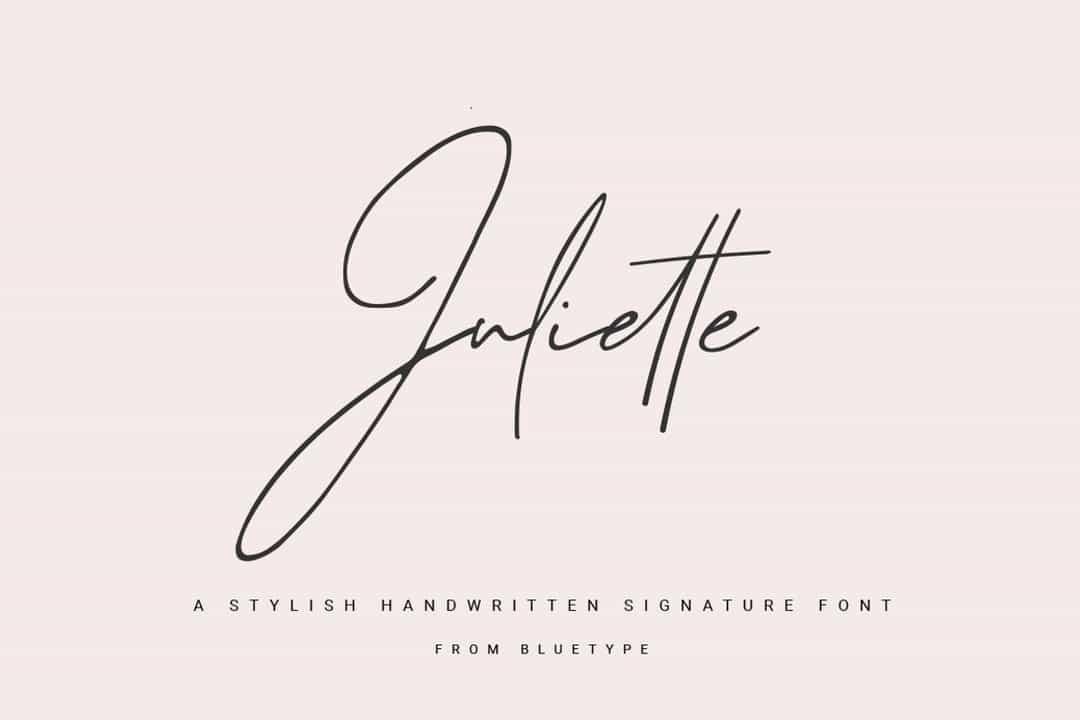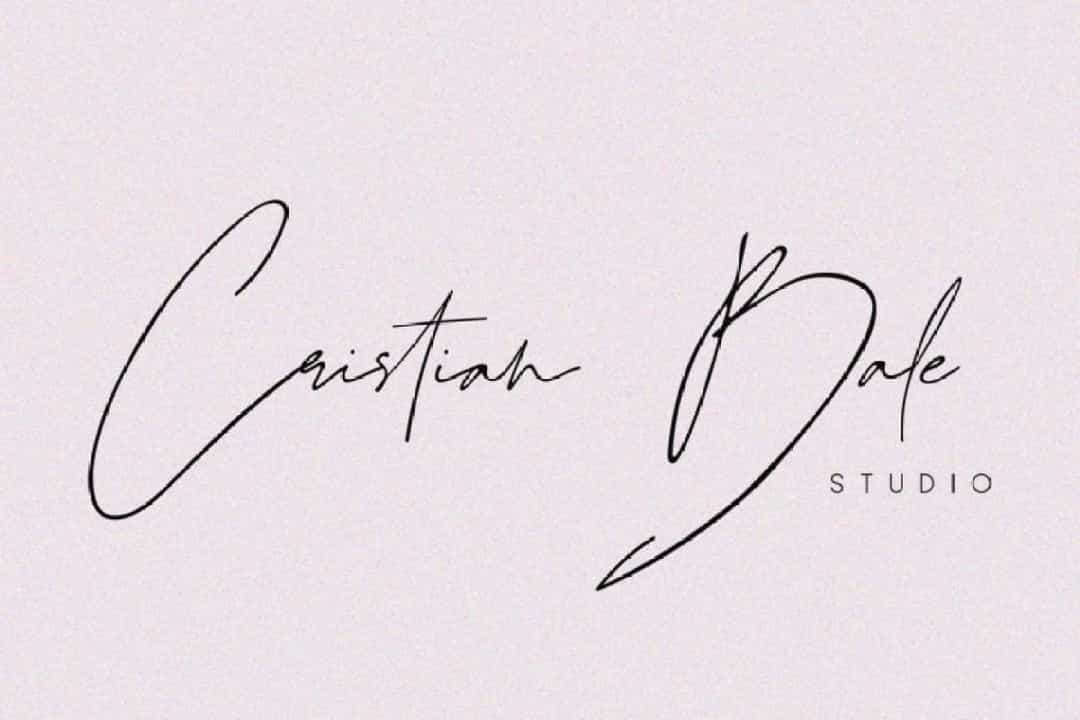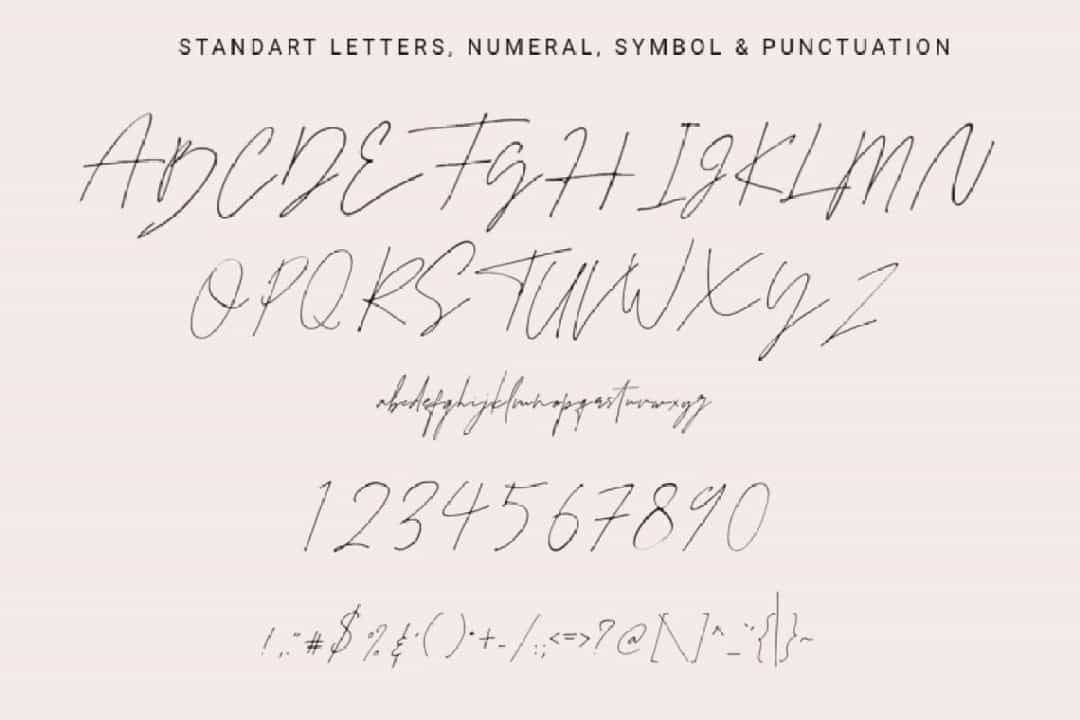
Written by Blue type, Juliette is a hand-lettered natural font. You will also find all the upper and lower case punctuations, numericals as well as letters, multilingual symbols, alternate lower case letters and ligatures.